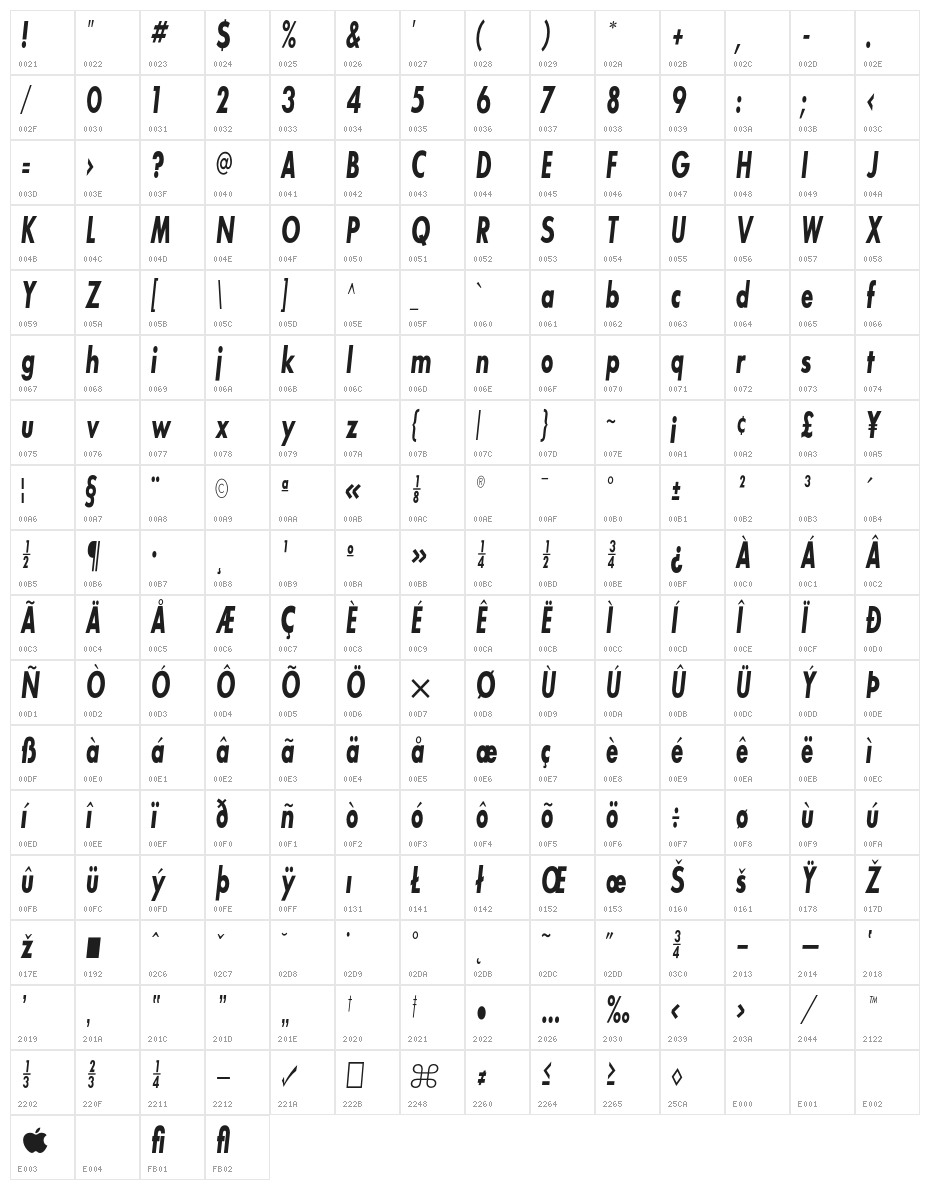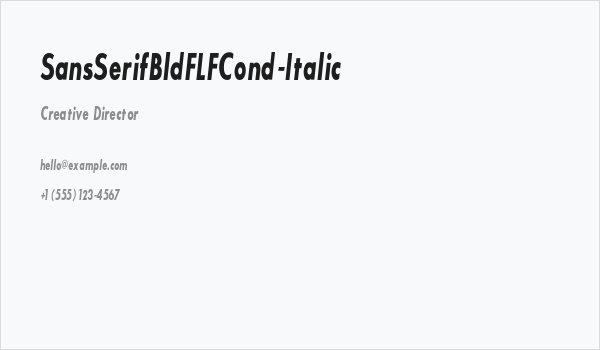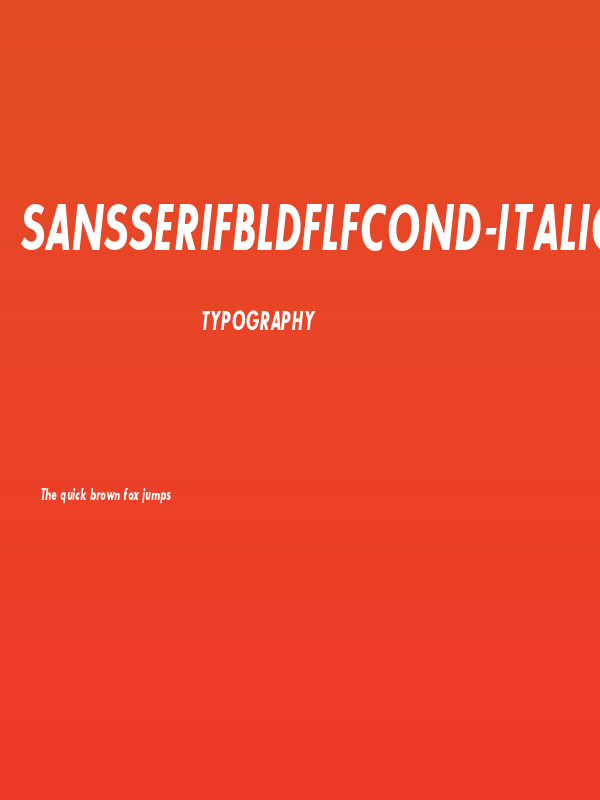
SansSerifBldFLFCond-Italic Font
SansSerifBldFLFCond-Italic Description
This font features a bold and condensed sans-serif style with a distinct italic slant. The characters are clean and modern, with a uniform stroke width that enhances readability. The uppercase letters are strong and assertive, while the lowercase letters maintain a consistent flow, making them suitable for various design applications. The numerals are clear and straightforward, ensuring they stand out in any context. Special characters are well-defined, adding to the font's versatility. This font is ideal for projects that require a contemporary and dynamic look.
| Proposed Projects | Ideal for branding, advertising, headlines, and digital content where a strong and modern impression is needed. |